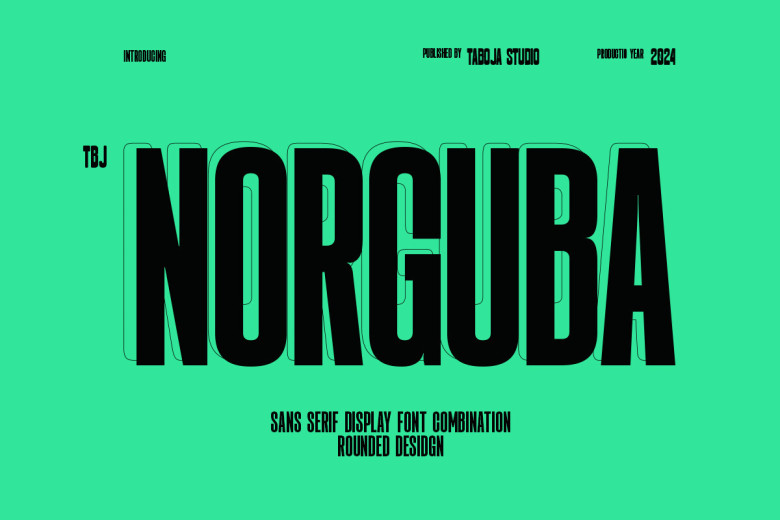
Norguba Font
Meet TBJ Norguba a display type font that defines the theme of contrasts and the not so different. As a graphical expression of the language, Norguba makes beautiful what only three years ago might have seemed a bit awkward; Its condensed regular style combined with the playful variable font feature bring a carefully curated grace and the charm of the digital future to the world’s language. All in all, analyzing the website’s layout and style, it is possible to conclude that the intended audience includes both the young and the mature individuals.
In summary, if you want to have a calm and sensuality on your bed or floor, or if you are looking for a multifunctional and active appearance, Norguba has the ultimate solution. It’s great for identities with heart, for packaging and real, simple, unforced messaging. Placards, murals, and animated movie clips that possibly stick to the walls.
Norguba Sans Serif Display Font